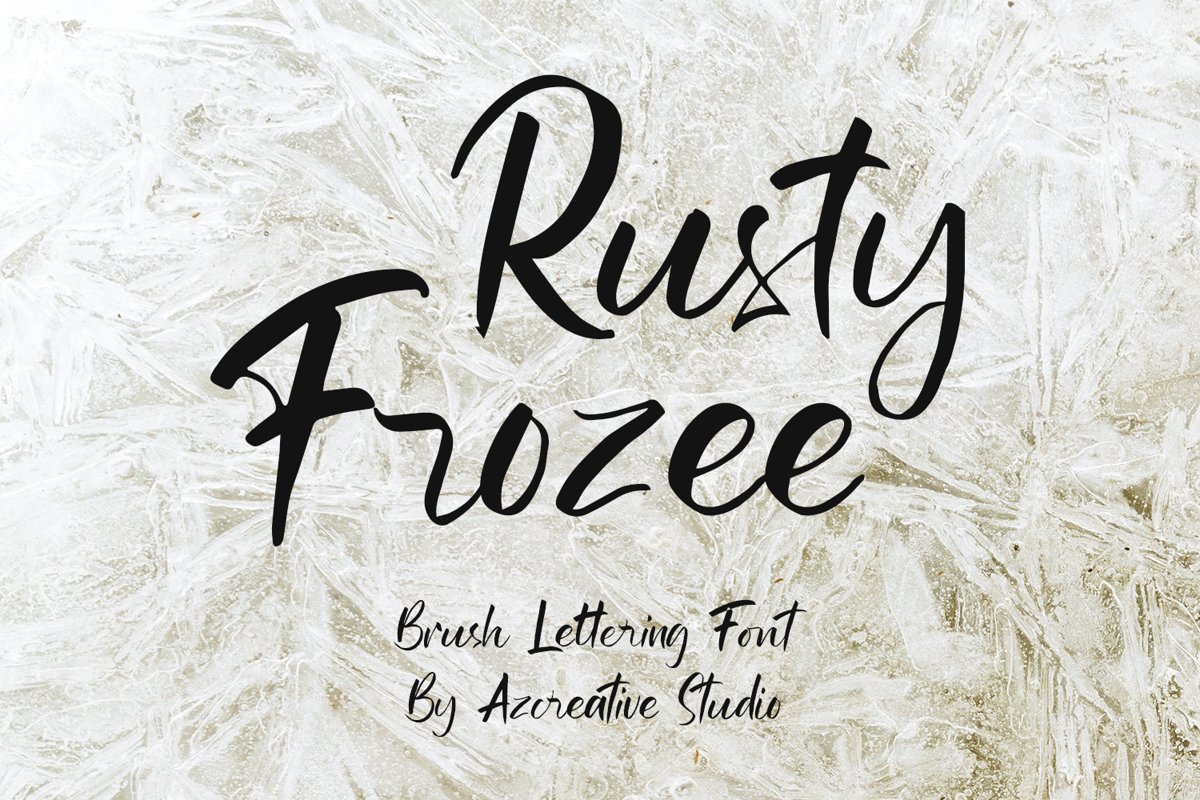
Rusty Frozee
introduce Rusty Frozee, a new font in the style of handlettering with messy lines and that's why we call it Rusty. This font is perfect for you to use for flyer or brochure designs that are street themed or hard style. Besides that, our font can also be used to design restaurant menus, and much more.
• Alternative glyphs that are already included in the font.
• Ligature that will embellish your font variations.
• Multilingual Support for several countries.